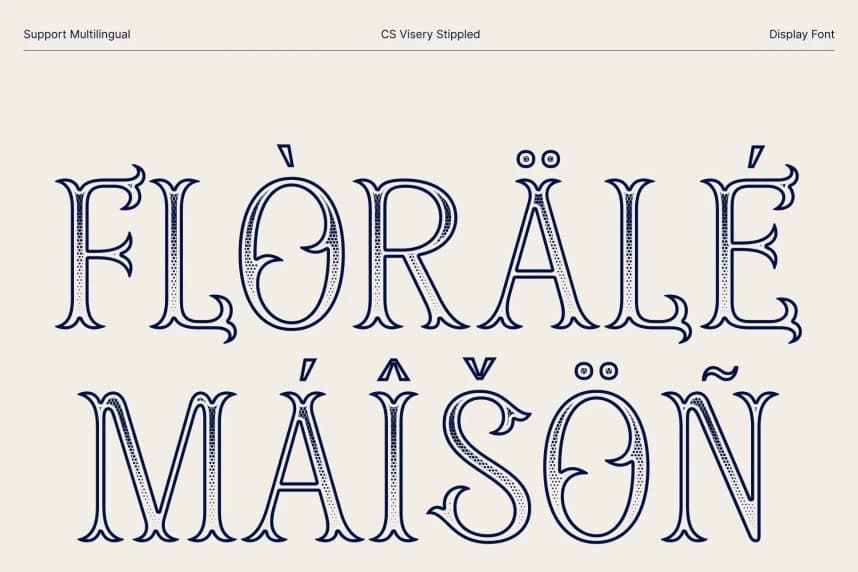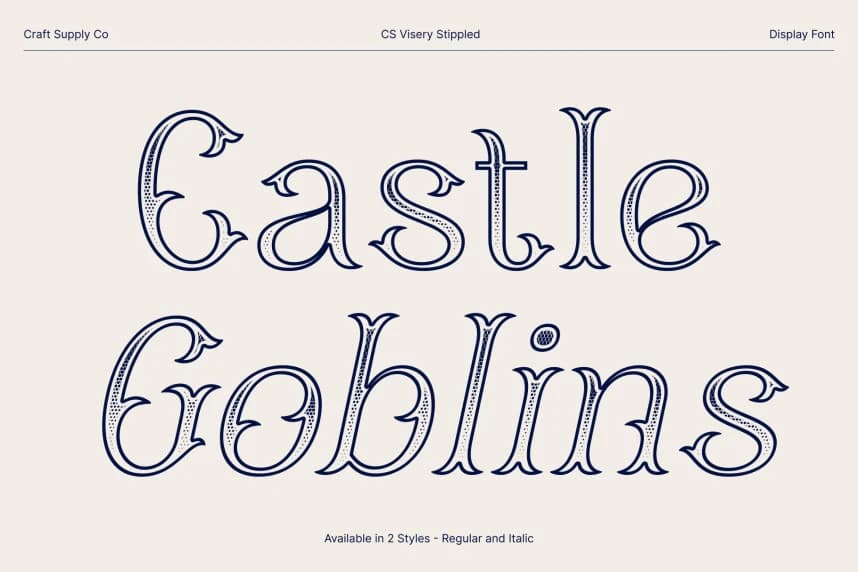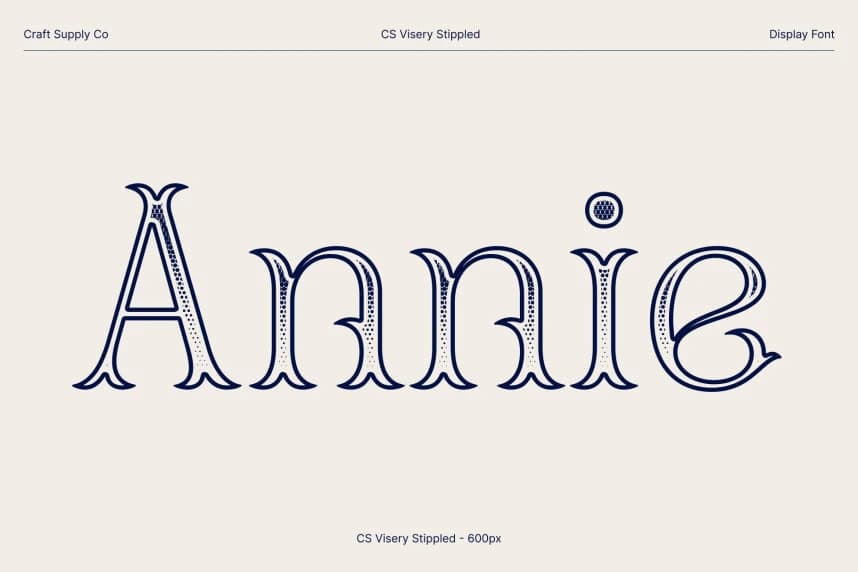
CS Visery Stippled Font
CS Visery Stippled Font – Display Font with Elegant Textured Impact Striking Display Design with Stippled Character. This is a modern display font defined by its captivating shapes and refined visual balance.